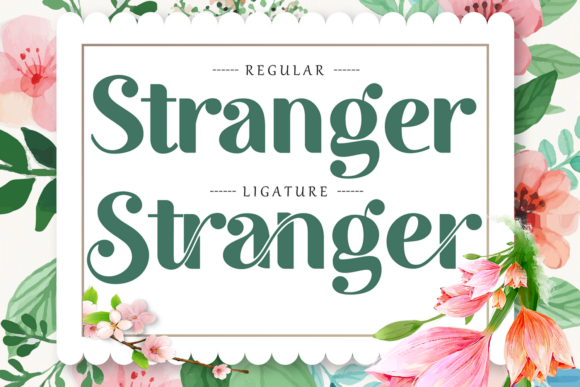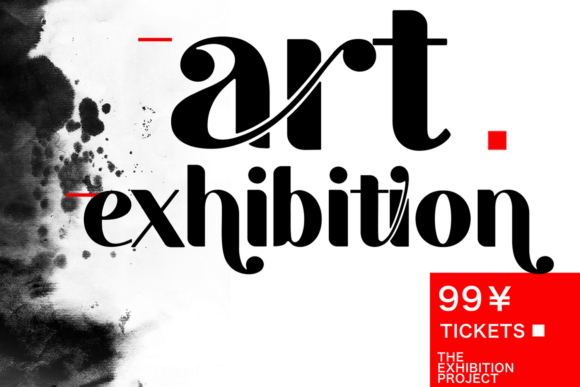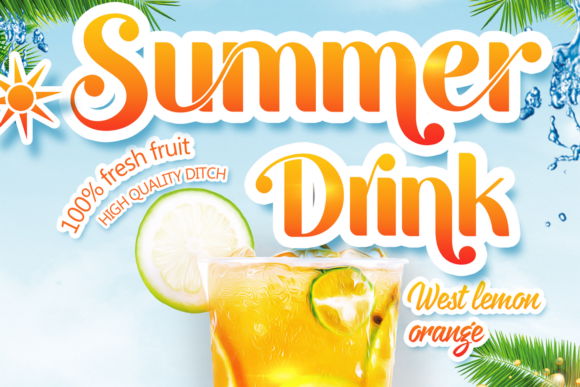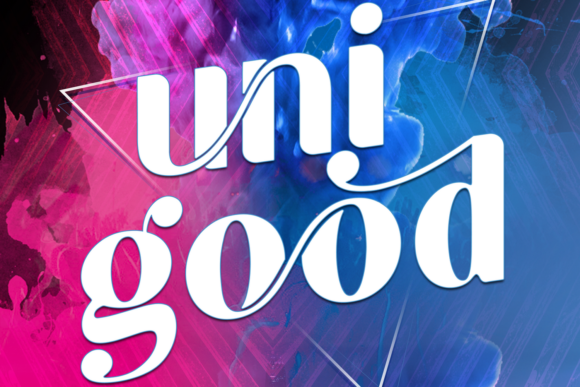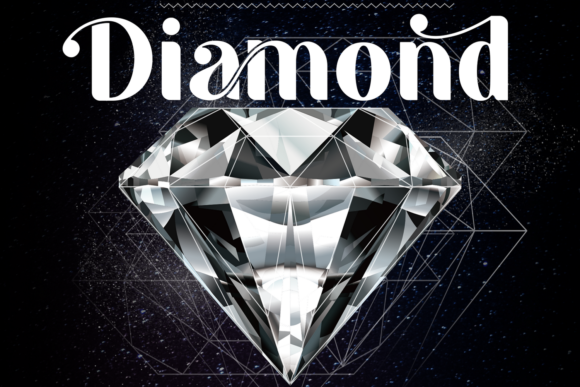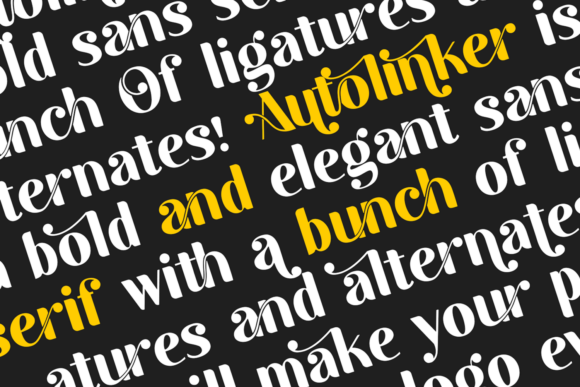
Introducing Autolinker Font: Elevate Your Designs with Elegance and Creativity
In the world of design, typography plays a crucial role in conveying messages, expressing creativity, and capturing the audience’s attention. Among the vast array of fonts available, Autolinker Font stands out as a fancy display font that can transform your designs into stunning pieces of art. With its amazing swashes and ligatures, Autolinker is the perfect choice for designers and crafters looking to add a touch of elegance and sophistication to their projects.
What Makes Autolinker Font Special?
Autolinker Font is not just another font; it’s a creative tool that offers a wide range of possibilities for designers and crafters. Here are some of its key features:
- Amazing Swashes: Swashes are decorative strokes that can add a touch of elegance to your designs. Autolinker Font features a variety of swashes that can be used to create stunning titles, headings, and quotes.
- Ligatures: Ligatures are special characters that combine two or more letters into a single glyph. Autolinker Font includes a range of ligatures that can add a touch of sophistication to your designs.
- Fancy Display Font: Autolinker Font is designed to make a statement. Its unique and elegant design makes it perfect for creating eye-catching titles, posters, and social media graphics.
Whether you’re a professional designer or a crafter looking for inspiration, Autolinker Font is the perfect choice for your next project. Here are some ways you can use Autolinker Font:
- Instagram Fonts: Create stunning Instagram posts and stories with Autolinker Font. Its elegant design and swashes make it perfect for creating eye-catching quotes, titles, and captions.
- Calligraphy Scripts: Autolinker Font is perfect for DIY projects that require a touch of elegance and sophistication. Use it to create beautiful calligraphy scripts for wedding invitations, greeting cards, and more.
- Graphic Design: Autolinker Font can be used in a variety of graphic design projects, including posters, flyers, brochures, and more.
Tips for Using Autolinker Font
To get the most out of Autolinker Font, here are some tips to keep in mind:
- Experiment with Swashes: Don’t be afraid to experiment with different swashes and ligatures to create unique and stunning designs.
- Mix and Match: Combine Autolinker Font with other fonts to create interesting and dynamic designs.
- Play with Colors: Autolinker Font looks great in a variety of colors. Experiment with different colors and gradients to add depth and interest to your designs.
In conclusion, Autolinker Font is a versatile and elegant font that can be used in a variety of design projects. Its unique features, such as swashes and ligatures, make it perfect for creating stunning titles, posters, and social media graphics. With its ease of use and flexibility, Autolinker Font is a must-have for designers and crafters looking to elevate their designs and bring their creative ideas to life.